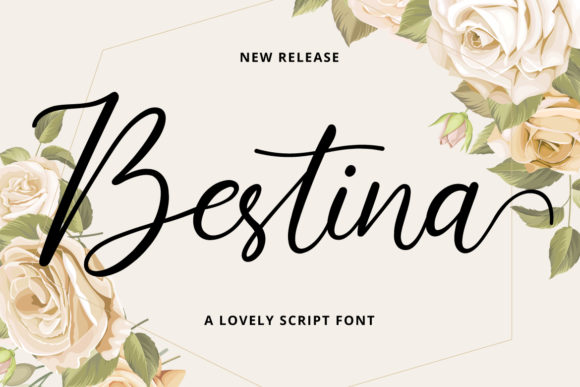
The Elusive Perfect Font: My Journey with Bestina
I’ll never forget the frustration of working on a design project, hours spent crafting the perfect layout, only to hit a roadblock: finding the right font. My client was particular, and I was determined to deliver. That’s when I stumbled upon Bestina, a delicate, elegant, and flowing handwritten font that would change the game. In this article, I’ll share my experience with Bestina, its features, and how to make the most of it in your designs.
First Impressions: A Love Affair with Bestina
Bestina is a beautiful, elegant font that has won my heart. Here’s what I love about it:
• ✨ Delicate and flowing lines that add a touch of sophistication to any design
• ✅ Well-balanced characters that make it easy to read and understand
• 💫 Stunning alternates and glyphs that offer endless creative possibilities
• 🎨 A varying baseline that adds a human touch to your designs
The Not-So-Perfect Font: A Few Quirks
While Bestina is an amazing font, it’s not without its limitations. Here are a few things to keep in mind:
• 🤔 Limited use in very small font sizes, as some details may get lost
• ⚠️ Not ideal for body text, as it’s best suited for headings and titles
Bestina’s Backstory: Designer Inspiration
While I couldn’t find any information on the designer of Bestina, it’s clear that they were inspired by the beauty of handwritten scripts. The font’s elegant lines and flowing curves evoke a sense of sophistication and refinement. Whether the designer was inspired by traditional calligraphy or modern handwriting, the result is a font that’s both timeless and trendy.
Q: Is Bestina suitable for body text?
A: While Bestina is a beautiful font, it’s best suited for headings and titles. For body text, you might want to choose a font that’s easier to read.